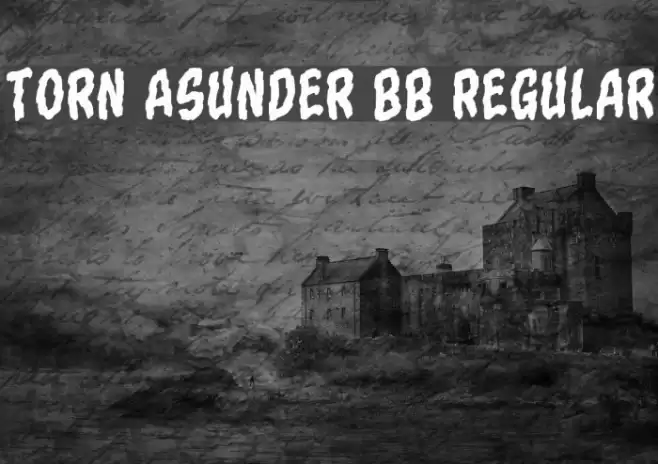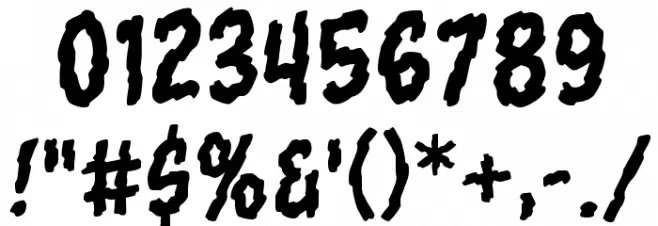
Torn Asunder BB Regular Font
Torn Asunder BB Regular Description
This font features a rugged, distressed style that gives the impression of being torn or eroded. The characters have an irregular, jagged edge, creating a bold and dynamic appearance. The uppercase and lowercase letters maintain a consistent height, contributing to a cohesive look despite the chaotic design. The numbers and special characters follow the same aesthetic, ensuring uniformity across all glyphs. This font's unique texture and bold presence make it ideal for projects that require a strong visual impact.
A rugged, distressed font with a bold, torn appearance from Uncategorized fonts.
- Proposed Projects: Ideal for posters, album covers, video game titles, or any project needing a dramatic, edgy look.